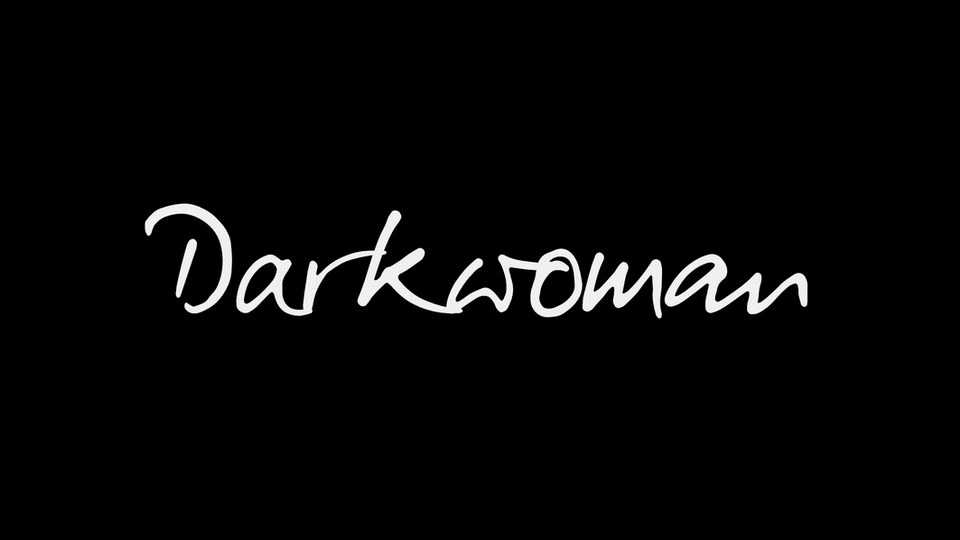
Download Darkwoman font, a handwritten typeface with a plethora of ligatures, inspired by the handwriting of the favorite teacher in university. Darkwoman font even starred as the handwriting of the protagonist in the game “Blues and Bullets”.
Designer: Tudor Banciu